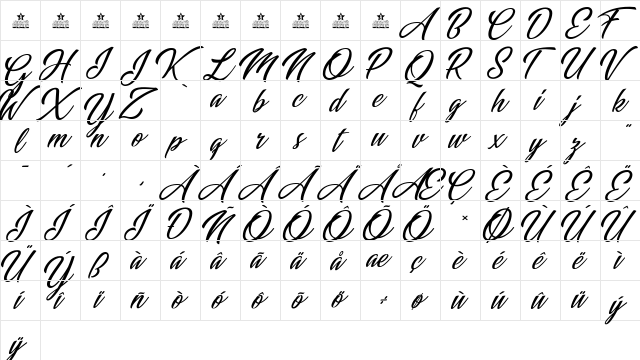
Miracle Place Personal Use Regular
Design Context for Miracle Place Personal Use Typeface
Miracle Place Personal Use is a composed and adaptable typeface that performs quietly and consistently across a wide range of design contexts.